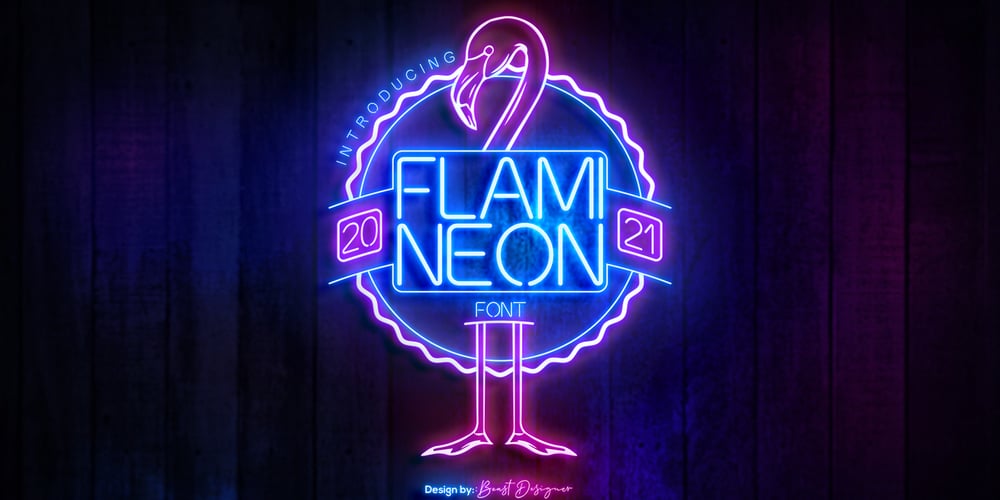
Flami City Font Family was designed by Mohammed Lamjidi and published by Beast Designer. Flami City contains 1 styles and family package options. Introducing Flami Neon – Electric Neon Light FontFlami Neon is an electrifying neon light font designed to bring a vibrant and lively touch to your designs. Its radiant, glowing letters evoke the iconic neon signs of the past, adding a dynamic and eye-catching element to any project. Perfect for posters, flyers, and invitations, Flami Neon is ideal for party themes, concerts, or any event that seeks a retro, energetic vibe.FEATURES All Caps Numerals and Punctuation Multilingual Support Compatible with PC and Mac Easy Installation Works seamlessly with Adobe Illustrator, Adobe Photoshop, Adobe InDesign, and Microsoft Word We hope you enjoy using Flami Neon to brighten up your designs.Thank you!